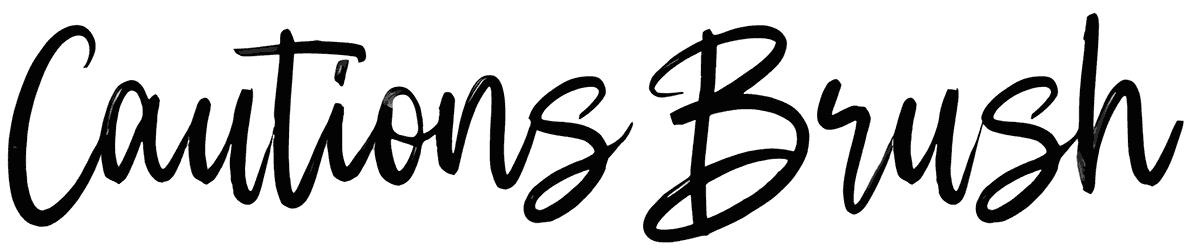
Cautions Brush Font
Stop hesitation and boost the efficiency of your creative ideas by taking advantage of a lovely script font, the same as the Cautions Brush. This brush font comes with an elegant style, thus looking totally suitable for your social media posts, book covers, illustrations, stickers, or product packaging.